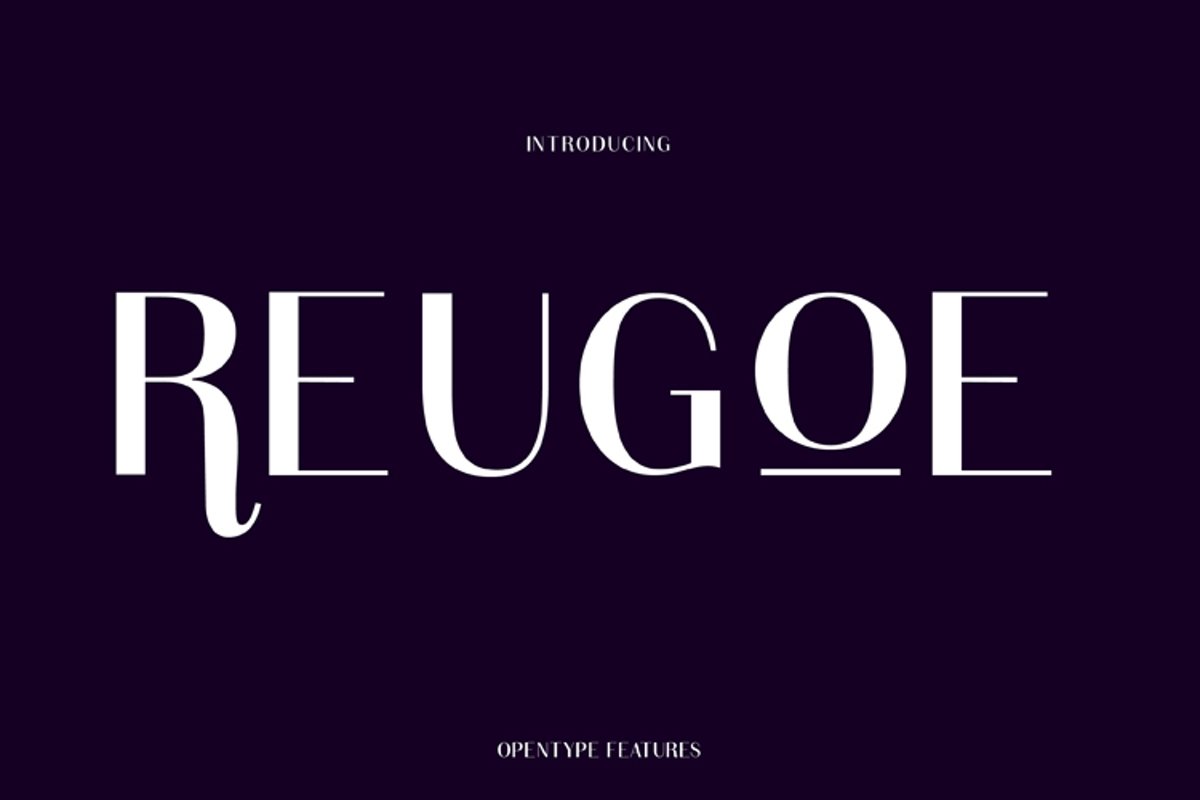
REUGOE
REUGOE is a display font that combines classic style and minimalist design touches, producing a beautiful and elegant style. This includes binders and many additional characters, which will make you explore your design style more easily. This works well for logos, posters, covers, main packaging, t-shirts, business cards, wedding cards and more.